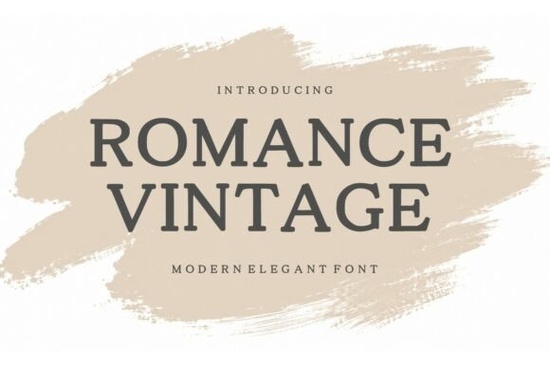
If you're looking for a serif font that feels both warmly nostalgic and quietly modern something that works as well on a wedding invitation as it does on a luxury skincare label then Romance Vintage Font is worth your attention. It’s not overly ornate, nor is it stripped down to the point of feeling cold. Instead, it strikes a thoughtful balance: classic serif structure with soft, intentional curves, generous spacing, and subtle contrast in stroke weight. Designers who’ve used it often say it “just looks right” at first glance no tweaking needed for tone or hierarchy.
When does Romance Vintage Font work best?
This font shines where authenticity and quiet confidence matter. Think: boutique fashion logos that avoid trends but still feel current; small-batch candle or perfume packaging that leans into heritage without seeming dated; editorial layouts for lifestyle blogs or printed zines where readability and atmosphere go hand in hand. It’s also popular among print-on-demand sellers creating greeting cards, art prints, or stationery sets especially those themed around romance, slow living, or vintage-inspired aesthetics.
Because its letterforms are carefully proportioned not too condensed, not too wide it holds up well across sizes. You can use it confidently for headlines, subheads, and even short blocks of body text (like a wedding ceremony program or product description). That versatility makes it practical for creatives who juggle multiple project types without wanting to license dozens of fonts.
How does it compare to other elegant serif fonts?
Unlike some high-contrast serifs that demand careful pairing or tight line-height control, Romance Vintage is forgiving without sacrificing character. It has more warmth than minimalist serifs like Mellos Font, and more restraint than heavily decorative options like Bagielo Font. If you’ve tried those and found them either too stark or too busy for your brand voice, this one may feel like a natural middle ground.
It’s also designed with real-world use in mind: OpenType features include standard ligatures, alternate characters, and stylistic sets so you can easily swap in a more delicate ampersand or a slightly flourished capital Q if your layout calls for it. No extra software or coding required just select from your design app’s glyph panel.
Who’s using it and why it fits real workflows
Small business owners building their own brand assets often choose Romance Vintage Font because it helps them look polished without hiring a designer for every update. One ceramicist told us she uses it across her Instagram captions, product tags, and packaging labels and customers regularly comment on how “cohesive” and “thoughtful” her visuals feel.
For designers working with clients in beauty, fashion, or hospitality, this typeface often becomes a go-to for mood boards and early mockups. Its restrained elegance signals quality without shouting making it easier to align stakeholders early in the process.
- ✅ You need a serif font that balances vintage charm with clean, modern usability
- ✅ Your projects include branding, packaging, invitations, or social media visuals
- ✅ You prefer fonts with built-in alternates and ligatures no extra plugins needed
- ✅ You want something that pairs easily with neutral sans-serifs (like Montserrat or Inter) or gentle script accents
If those match your needs, Romance Vintage Font is likely a solid, low-friction addition to your toolkit designed thoughtfully, tested across real use cases, and ready to support your next creative step.